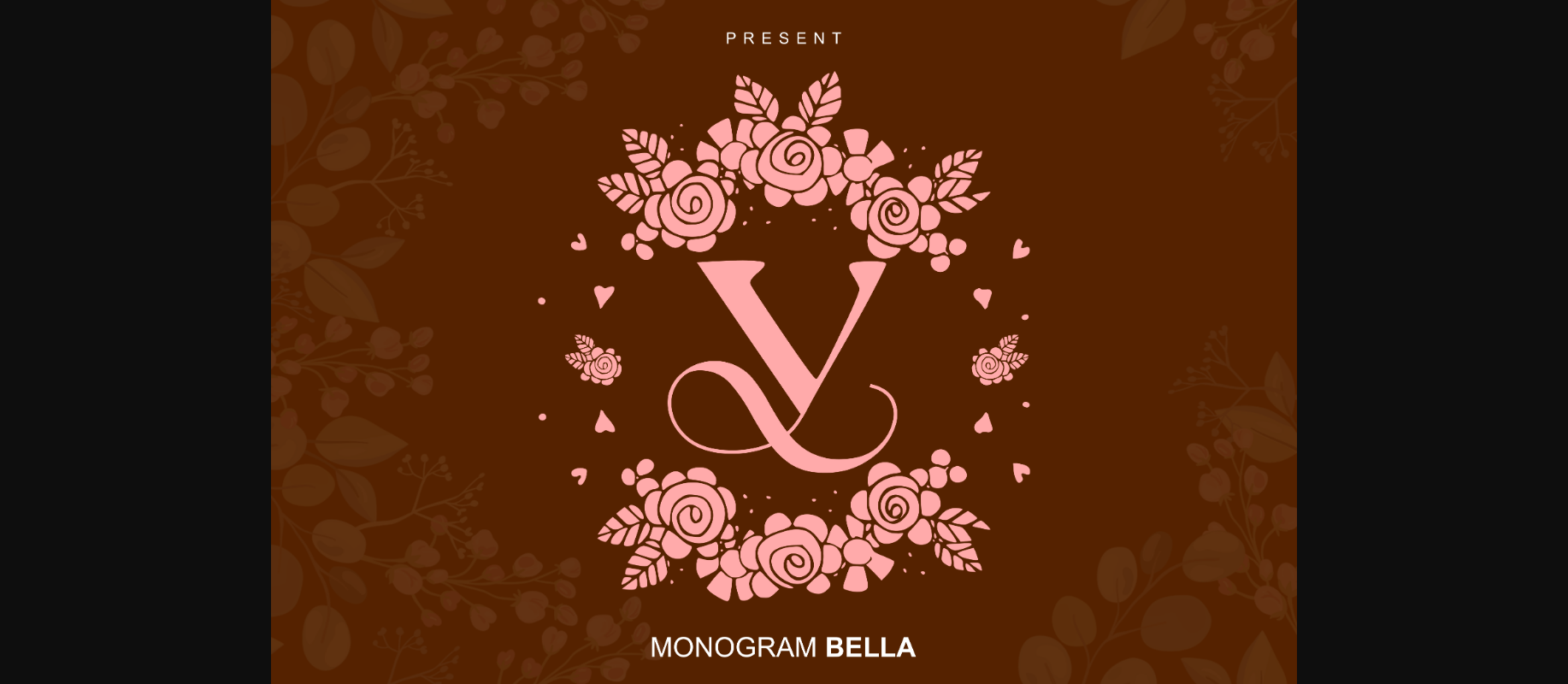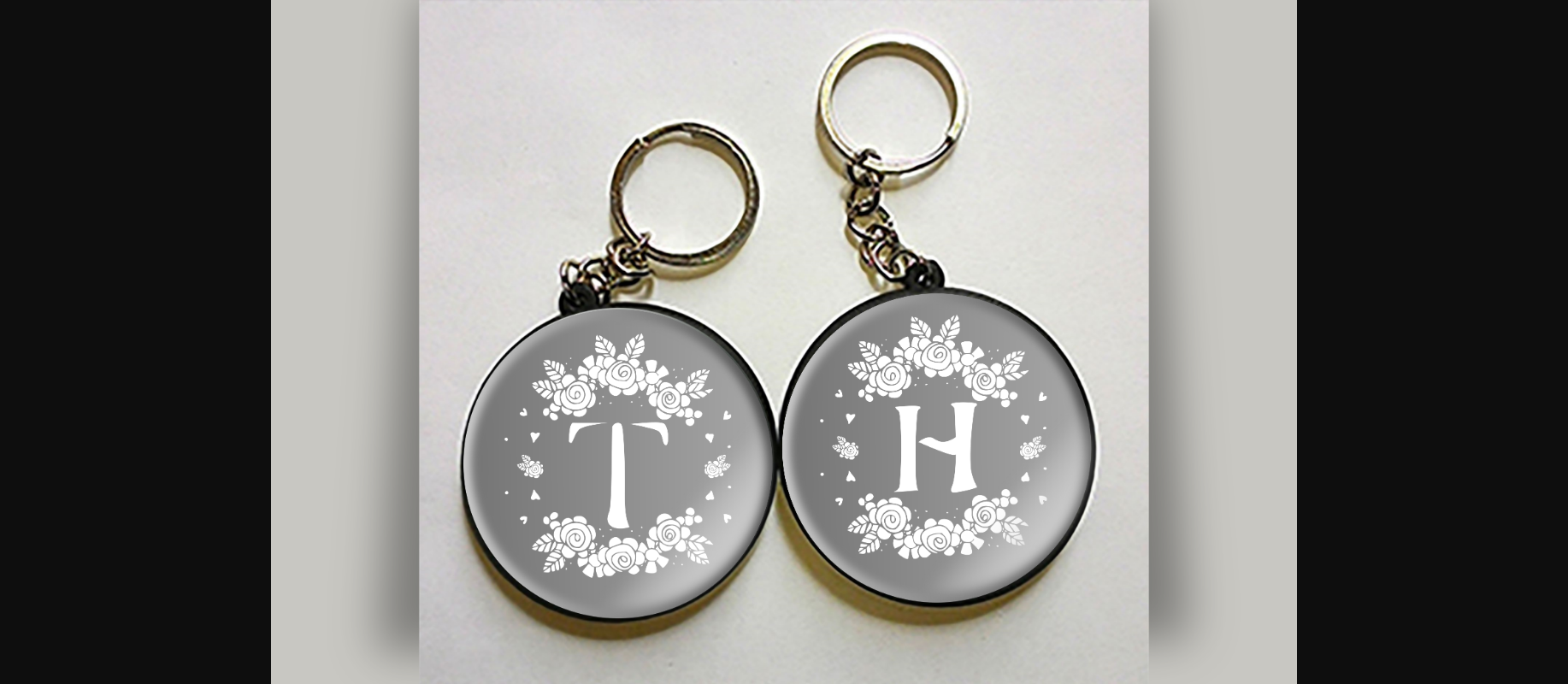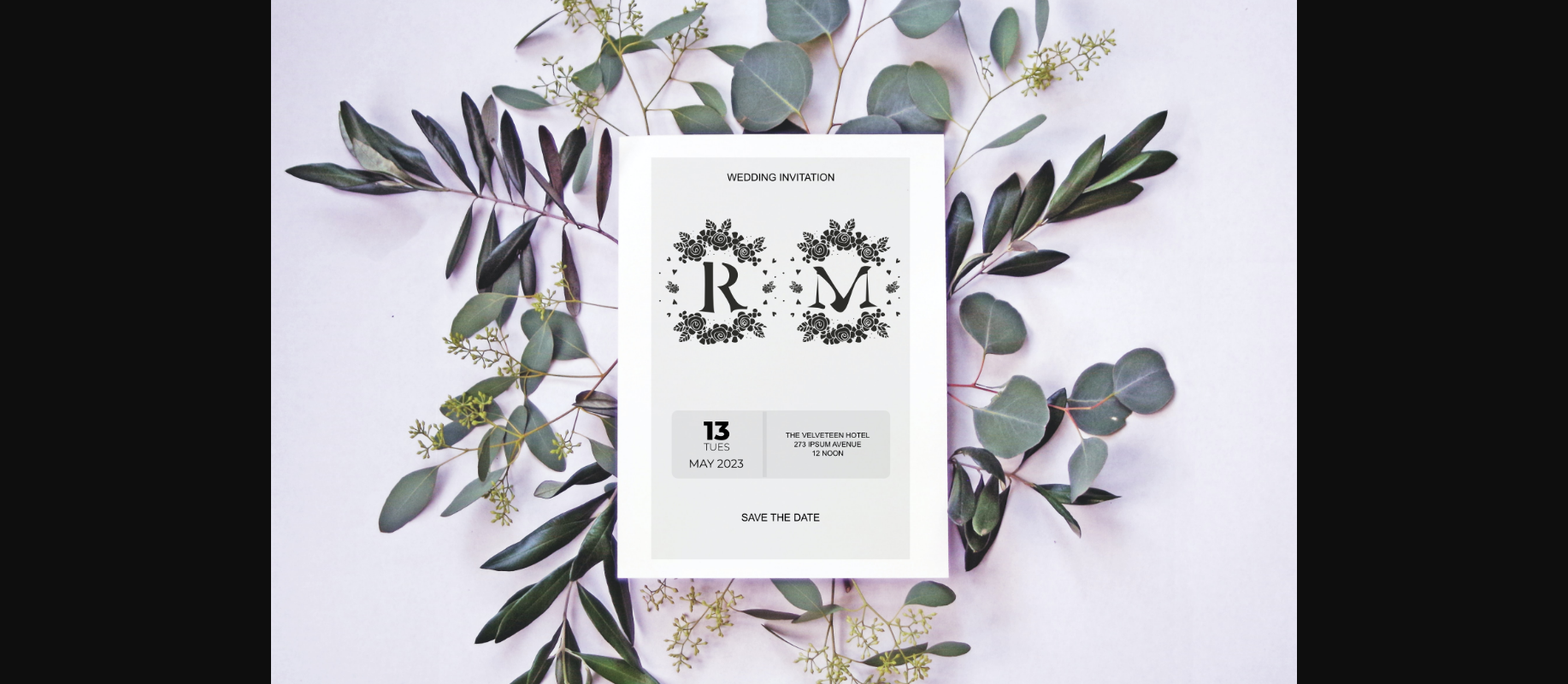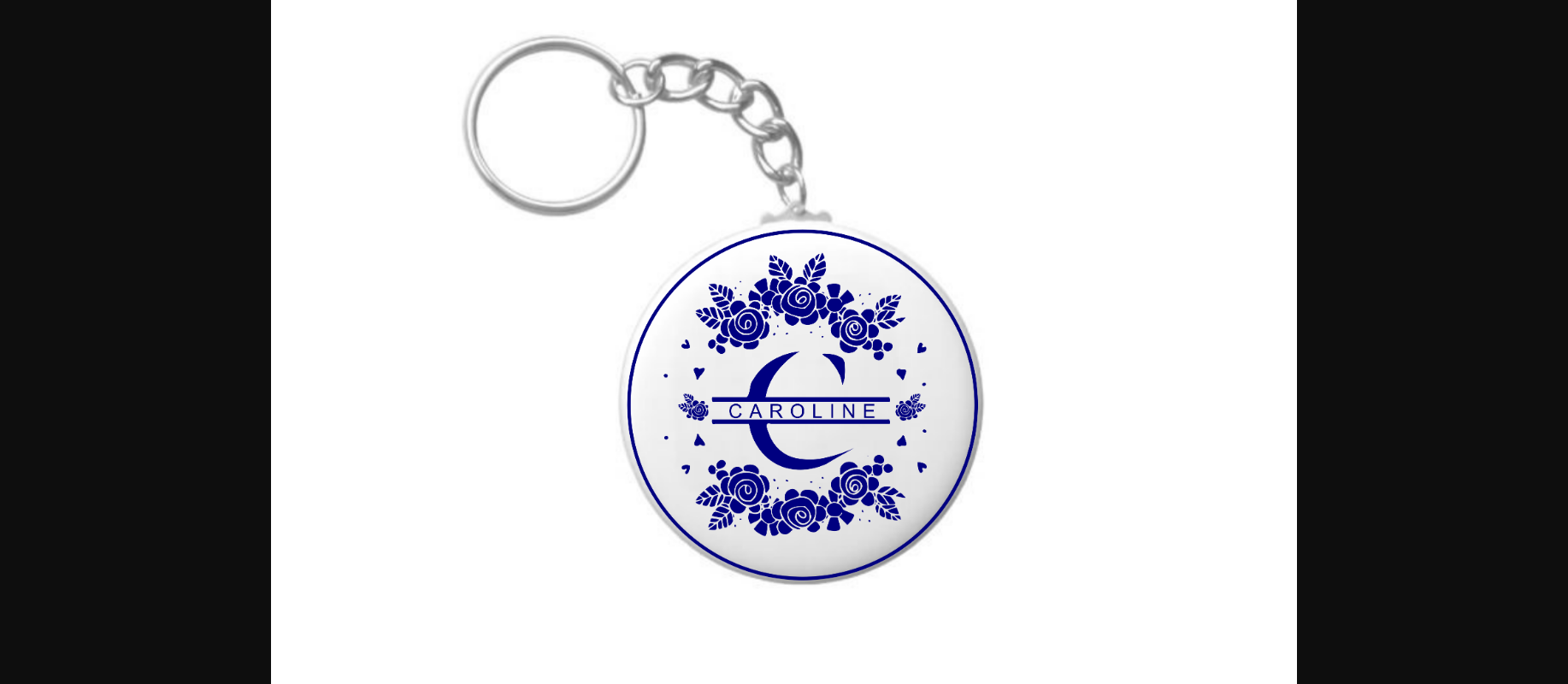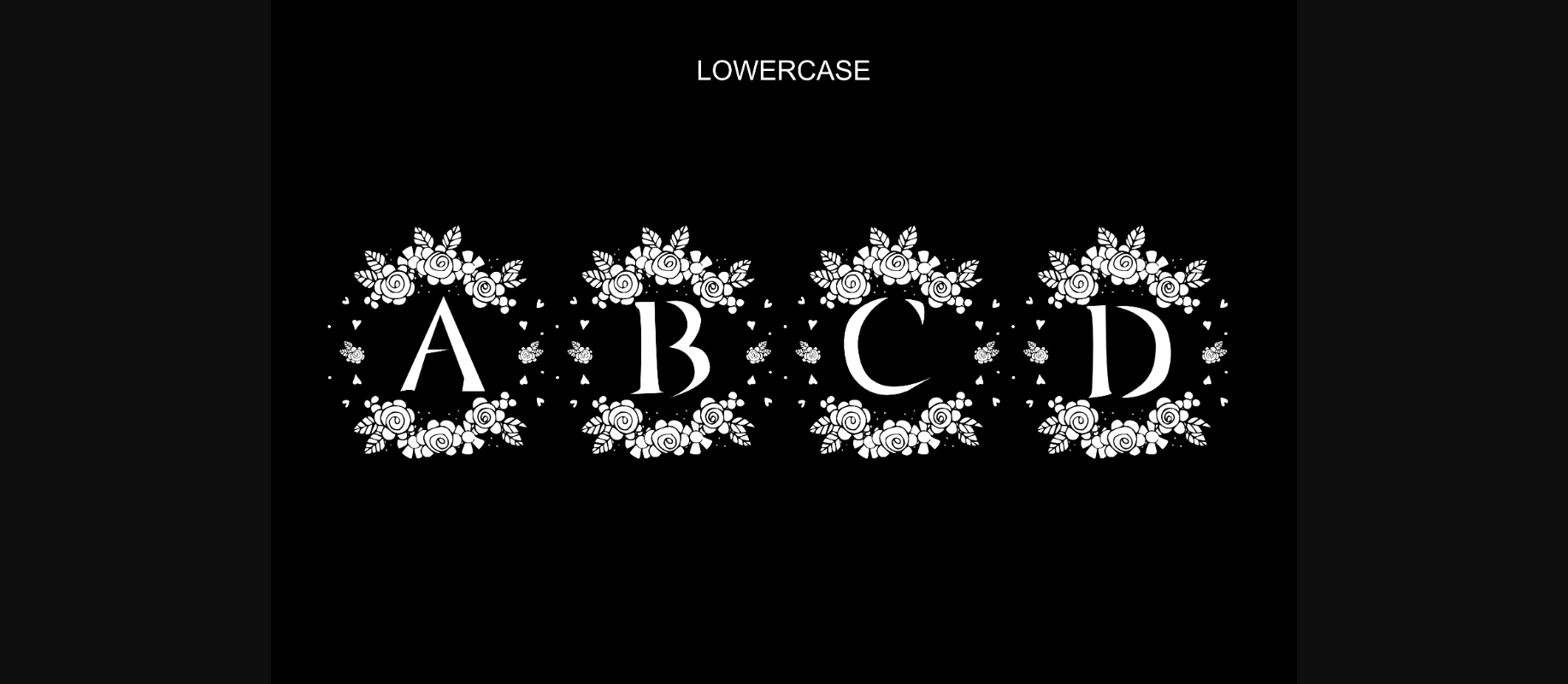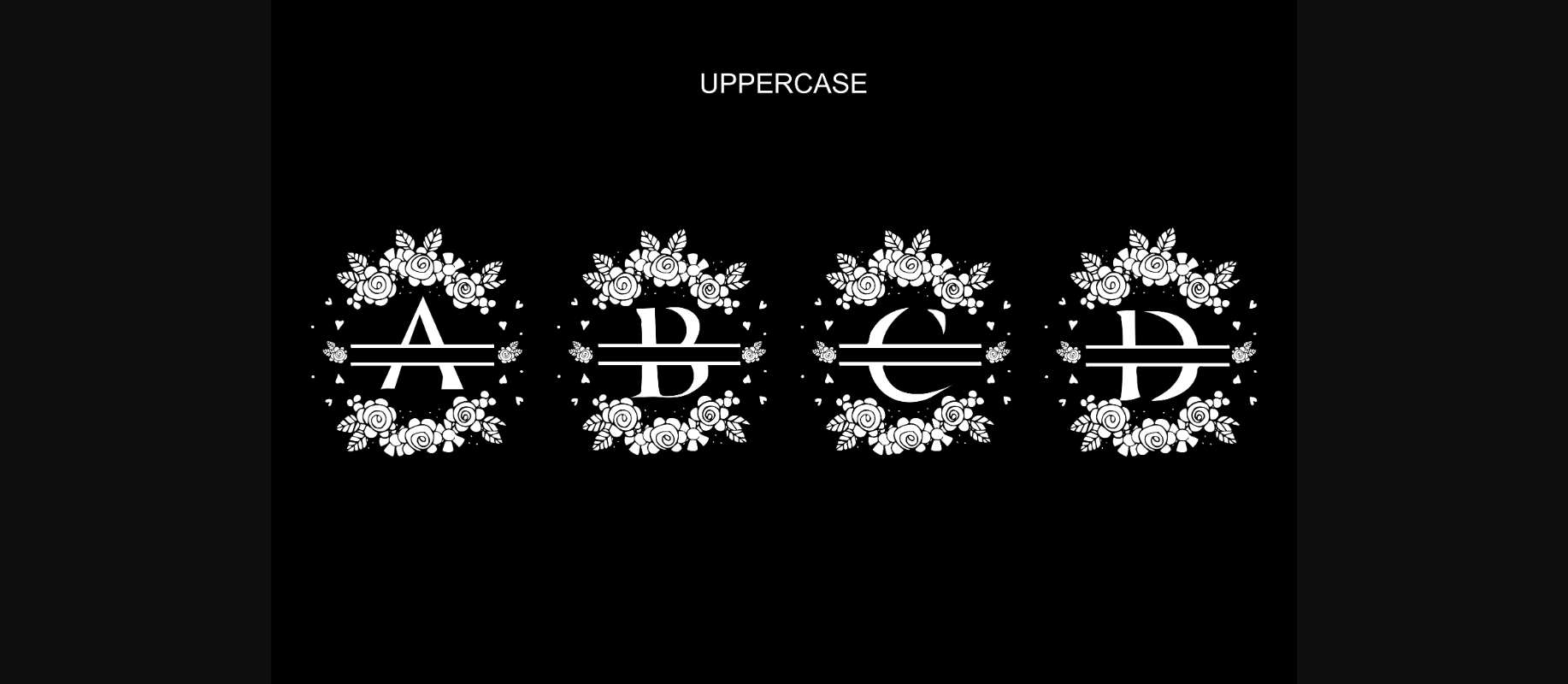
Monogram Bella Font
About Monogram Bella Font
Monogram Bella is a dainty and beautiful decorative font. Fall for its ravishing style and use it to create gorgeous designs.